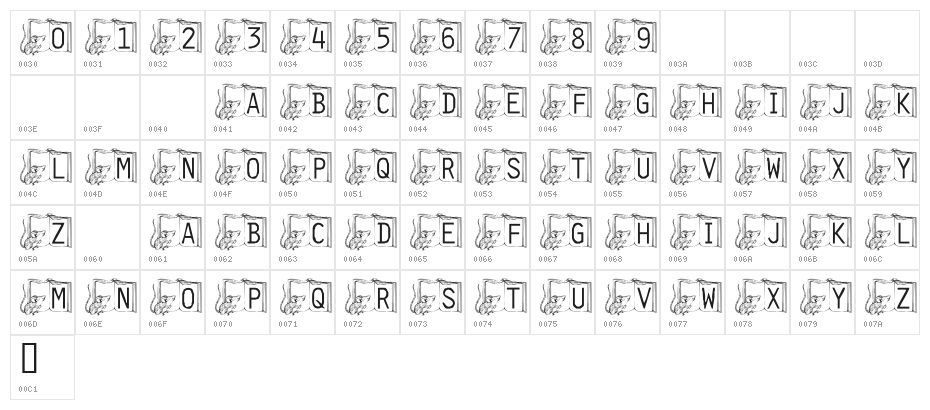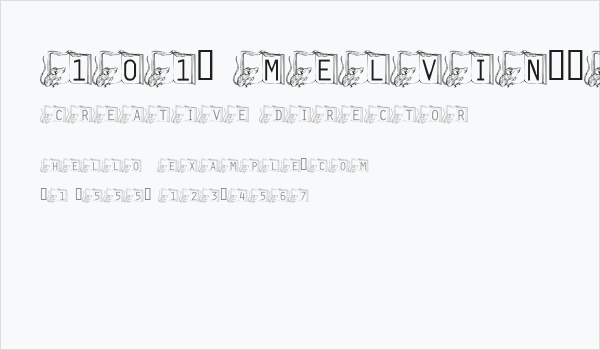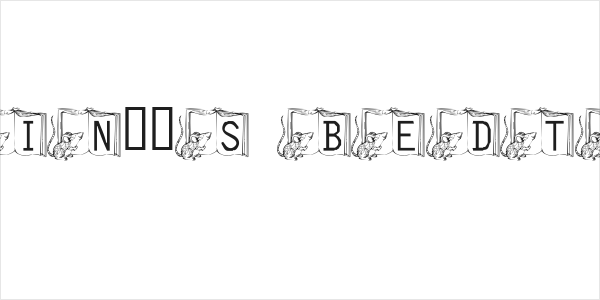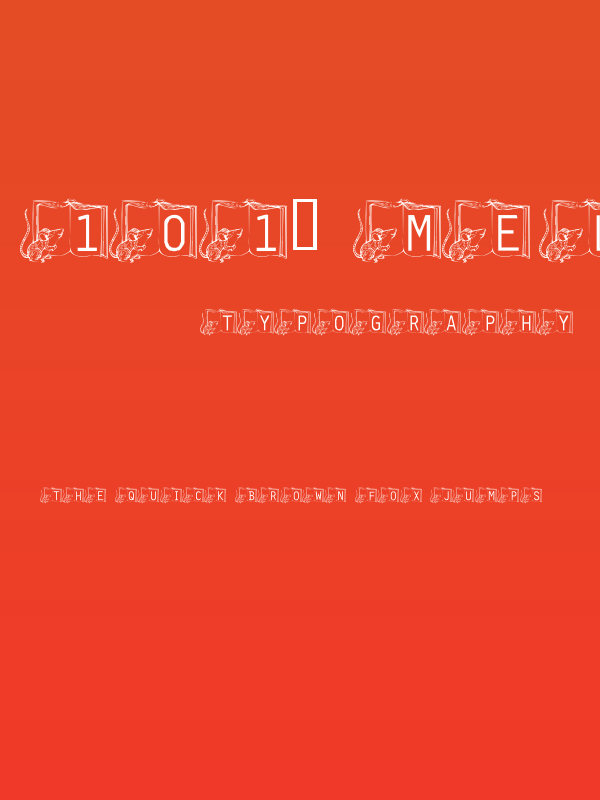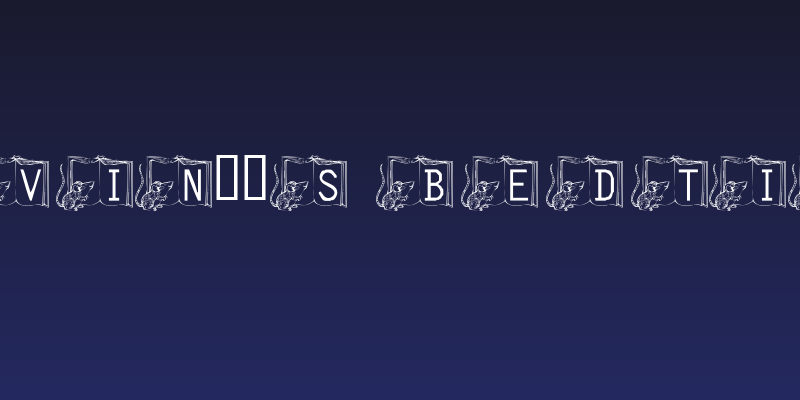
101! Melvin's Bedtime Story Font
101! Melvin's Bedtime Story Description
This font features a unique decorative style where each character is enclosed within an ornate frame, reminiscent of a vintage storybook illustration. The letters are bold and uppercase, with a consistent thickness that gives them a strong presence. The intricate border around each character adds a whimsical and artistic touch, making it ideal for creative projects. The numbers follow the same design, maintaining uniformity across the character set. This font does not include lowercase letters or special characters, focusing instead on a distinct and cohesive aesthetic.
Overall StyleVintage
Proposed ProjectsIdeal for children's book covers, whimsical posters, and creative invitations.